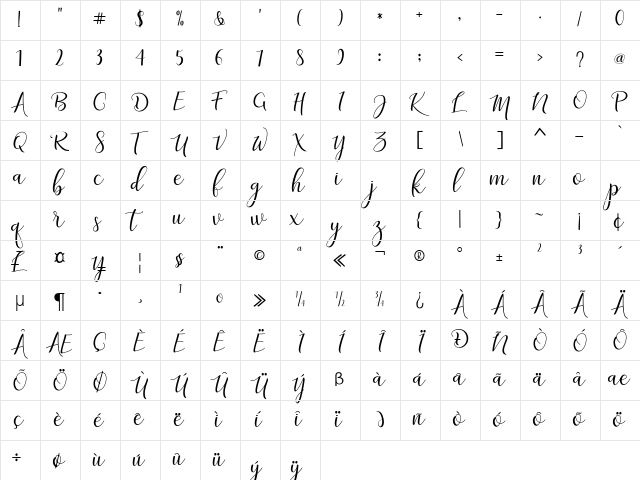
adaline script Regular
| Foundry | mrletters_Muhammad Rizal |
| Designer | mrletters_Muhammad Rizal |
Design Context for adaline script Typeface
adaline script brings a calligraphic fluidity to the page — its connecting strokes and expressive curves give it an unmistakably human quality.
Font Pairing: Combine adaline script with a simple geometric sans for maximum contrast — the tension between flowing curves and clean structure is a classic typographic pairing.
Pro Tip: Pair adaline script with a clean sans-serif for supporting text. The contrast between fluid script and geometric structure creates an elegant typographic hierarchy.